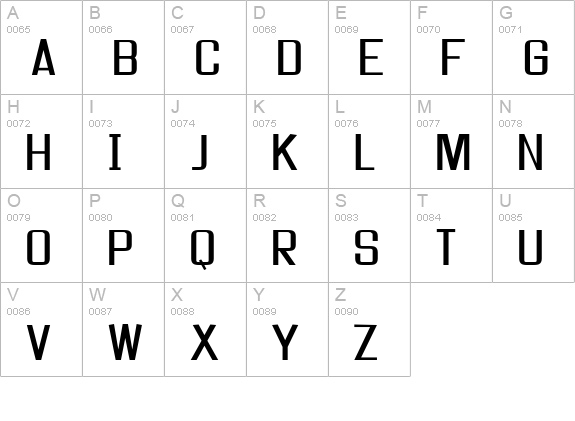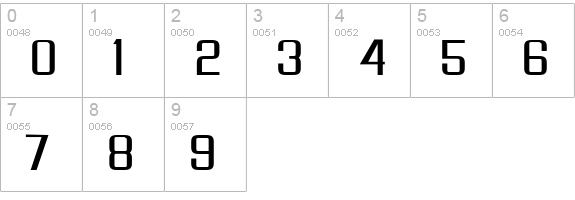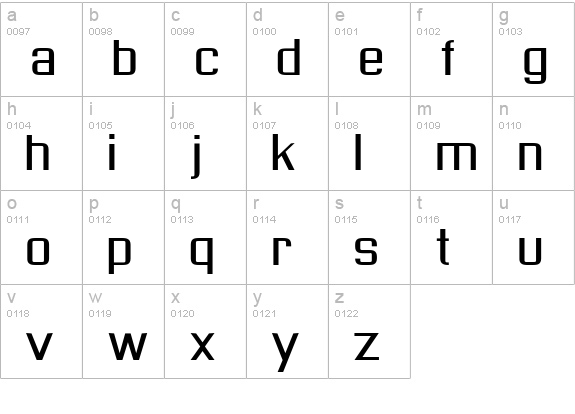
As seen on TV Font Details
The As Seen on TV font is a bold and eye-catching typeface inspired by the captivating and dynamic designs often seen in television advertisements. With its distinct style and modern appeal, this font is sure to make your projects stand out from the crowd. Whether you're creating promotional materials, social media graphics, or event posters, the As Seen on TV font will grab the attention of your audience and leave a lasting impression. And the best part? This amazing font is available for free download at FontsMarket.com. So go ahead and unleash your creativity with the As Seen on TV font today!